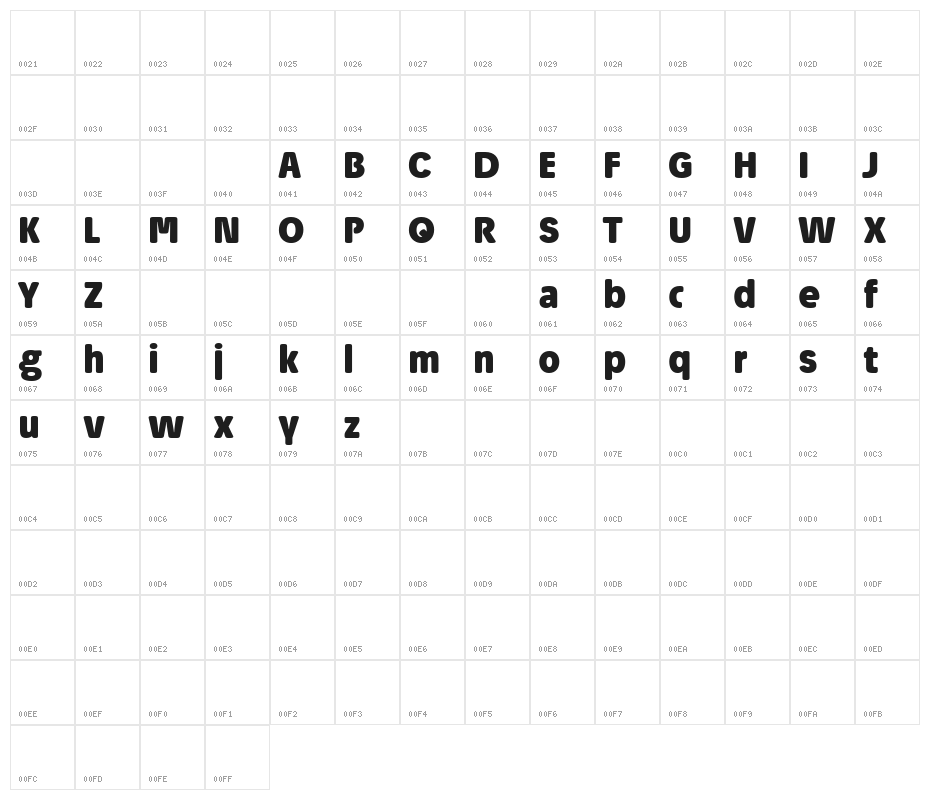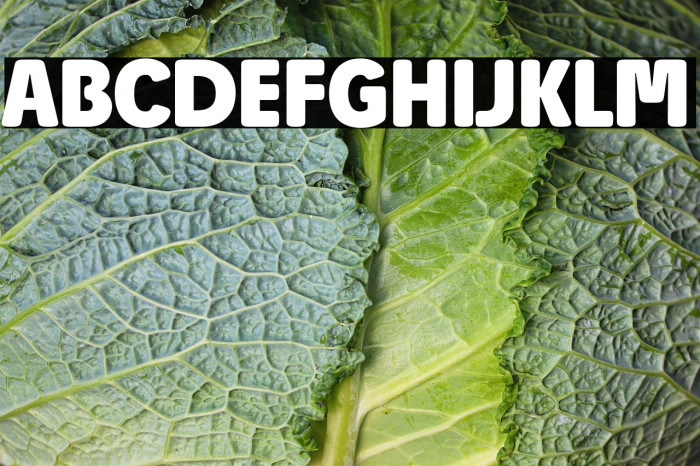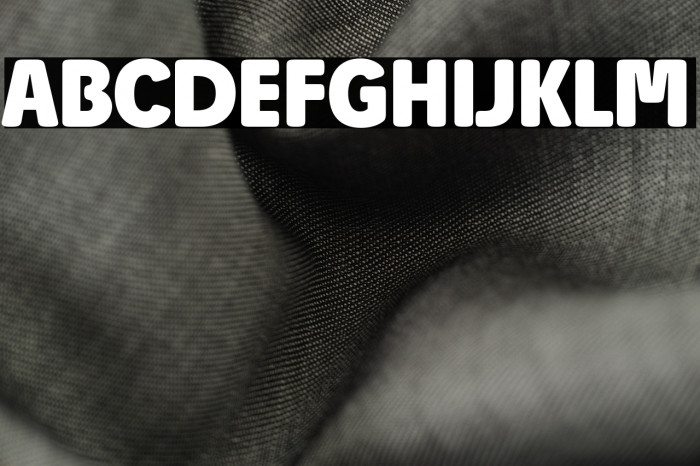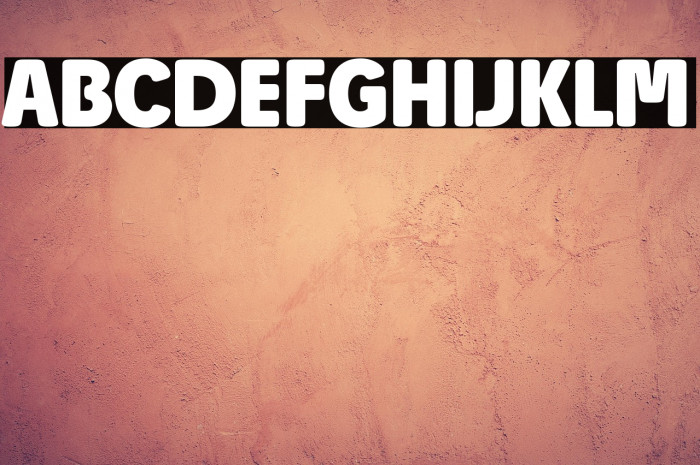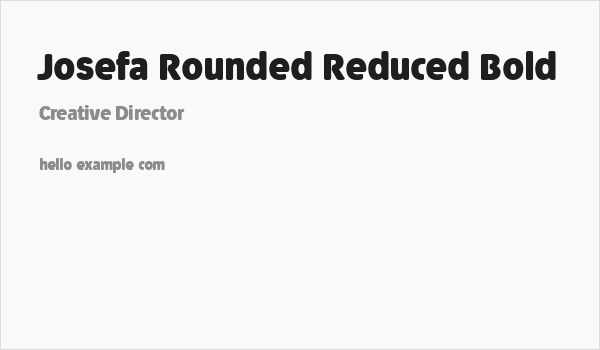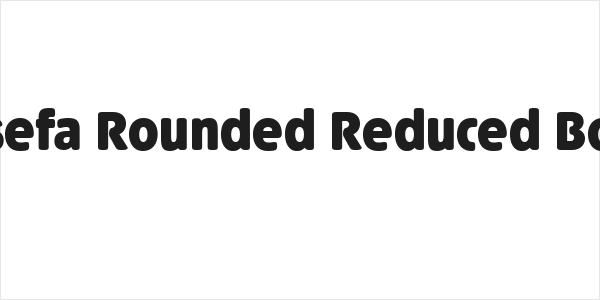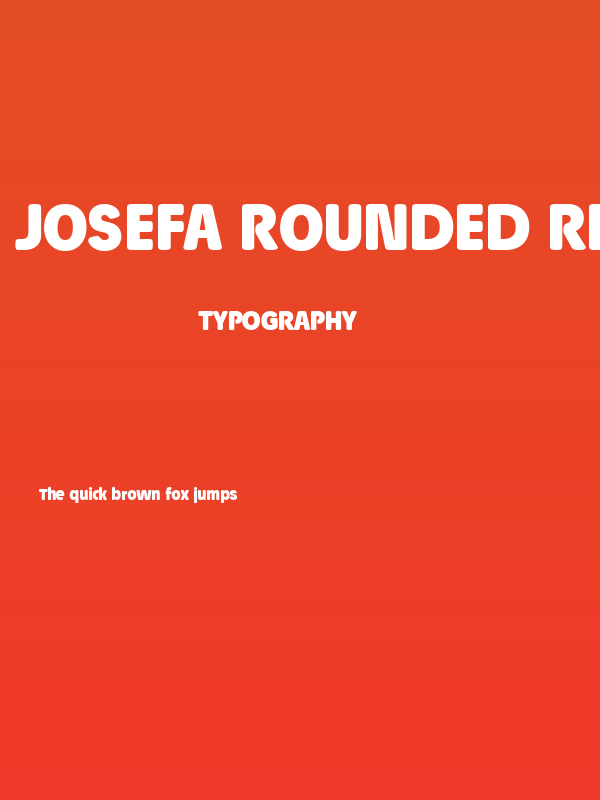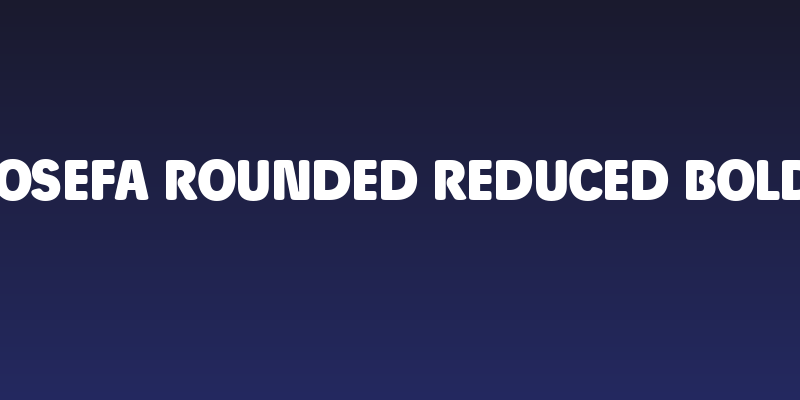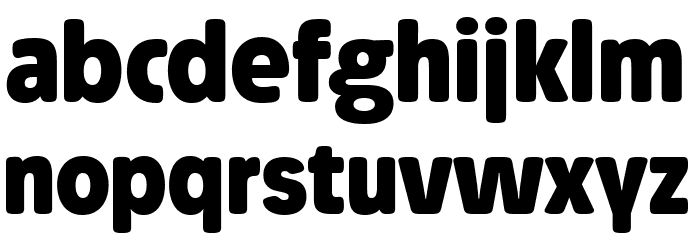
Josefa Rounded Reduced Bold Font
Josefa Rounded Reduced Bold Description
This font features a bold and rounded style, characterized by its smooth curves and thick strokes. The letters are uniformly bold, giving a strong and confident appearance. The rounded edges soften the overall look, making it approachable and friendly. The consistent weight across all characters ensures readability and a cohesive design. It is well-suited for projects that require a modern and inviting aesthetic, such as branding, advertising, and digital media.
| Proposed Projects | Ideal for branding, advertising, digital media, and any project needing a modern, approachable look. |